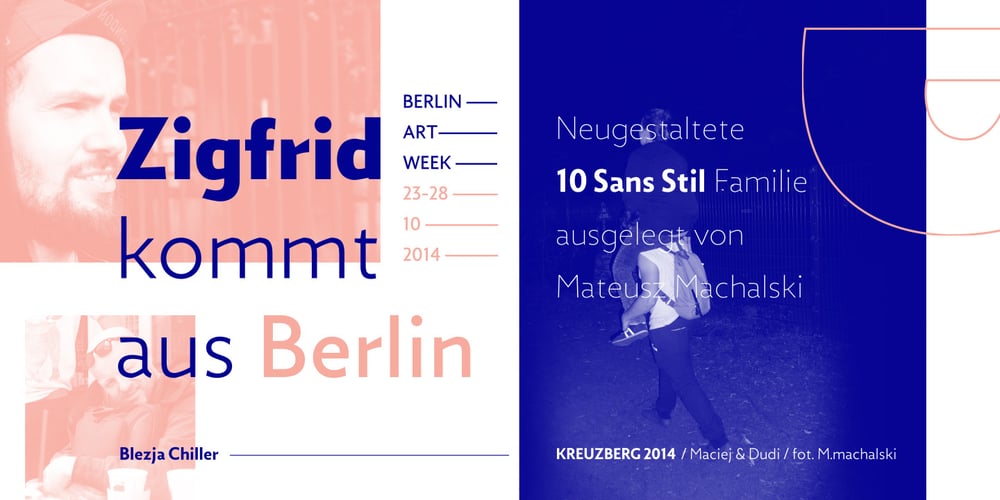
Zigfrid Font Family was designed by Mateusz Machalski and published by Machalski. Zigfrid contains 10 styles and family package options. The Zigfrid family was made after my visit to Deutschland and impression of old typography on the streets of Berlin. Zigfrid contains 5 different styles with a geometric, “trendlist” feel.